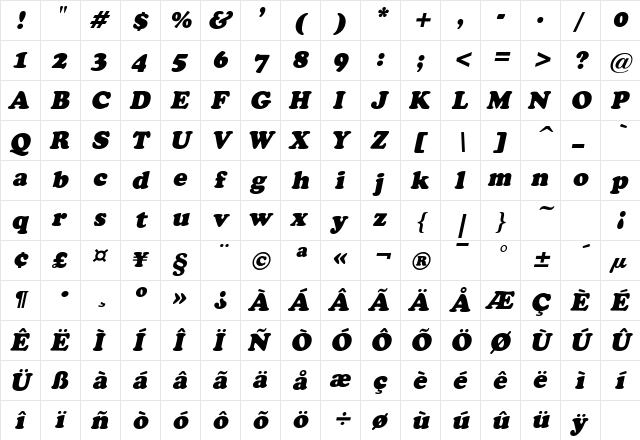
Copperfield Italic
Design Context for Copperfield Typeface
Copperfield is a composed and adaptable typeface that performs quietly and consistently across a wide range of design contexts. The dynamic lean of this cut emphasises speed and emphasis in any layout.
Pro Tip: Try Copperfield for annotation and caption copy alongside an upright companion — the contrast in angle creates a dynamic but ordered typographic system.